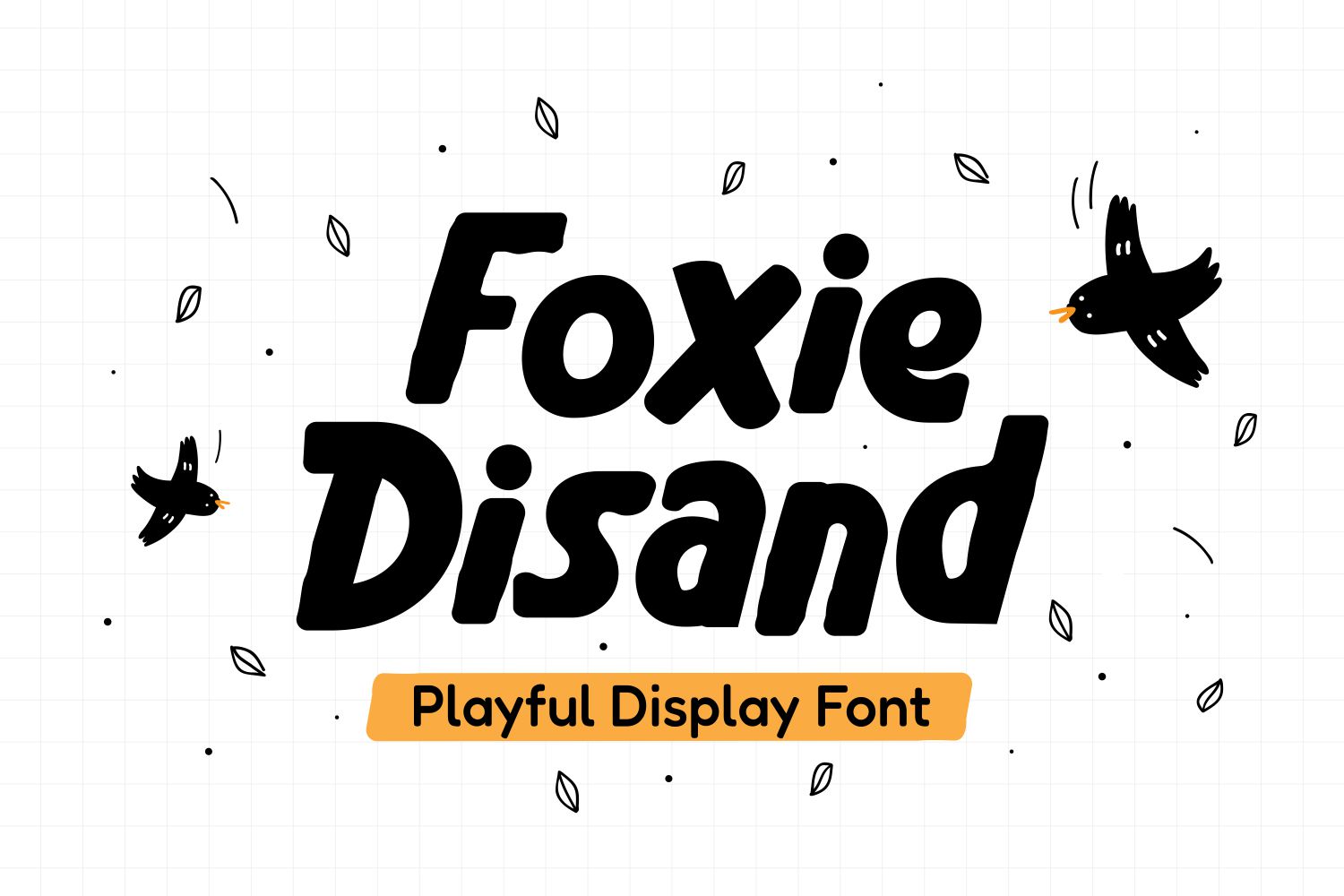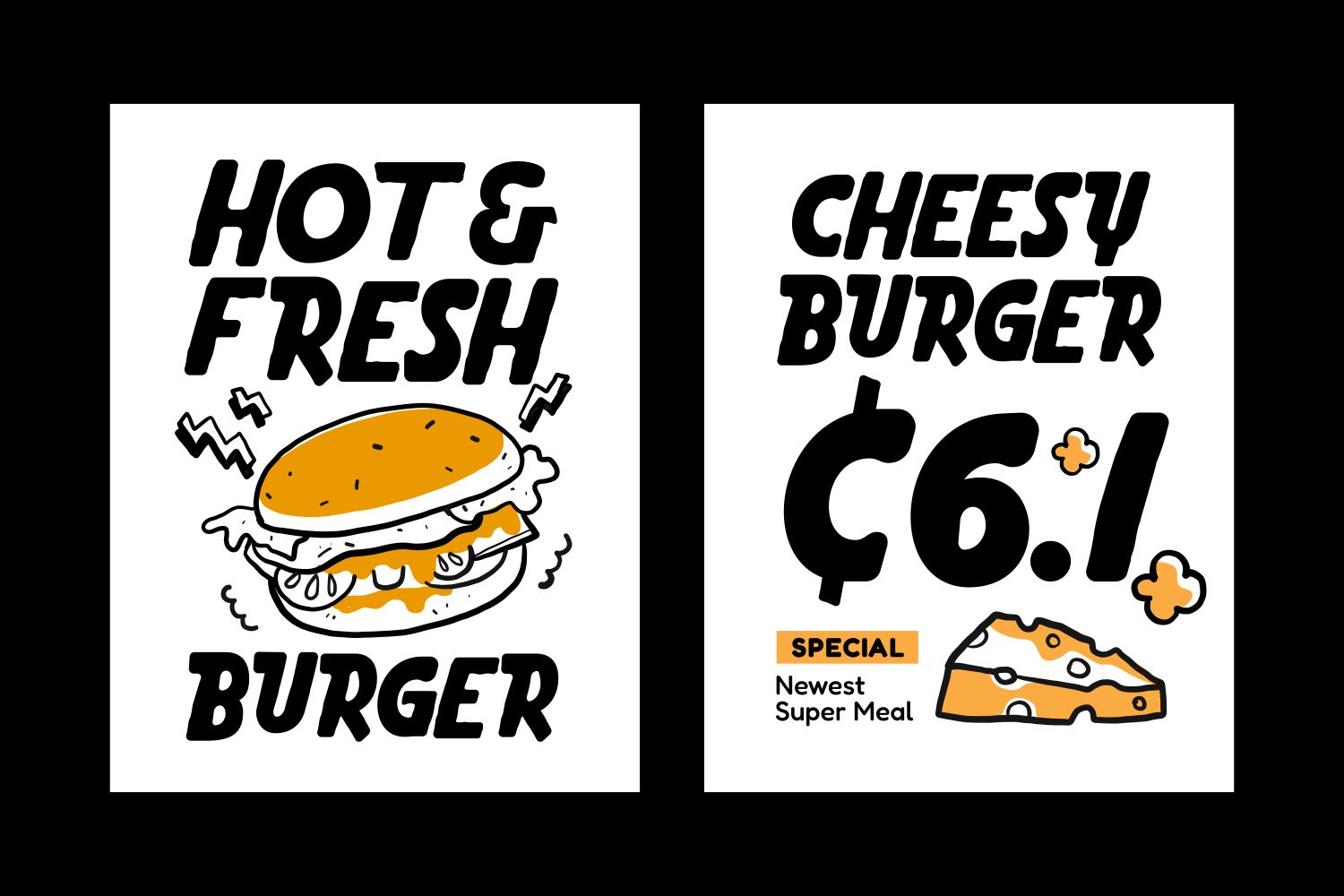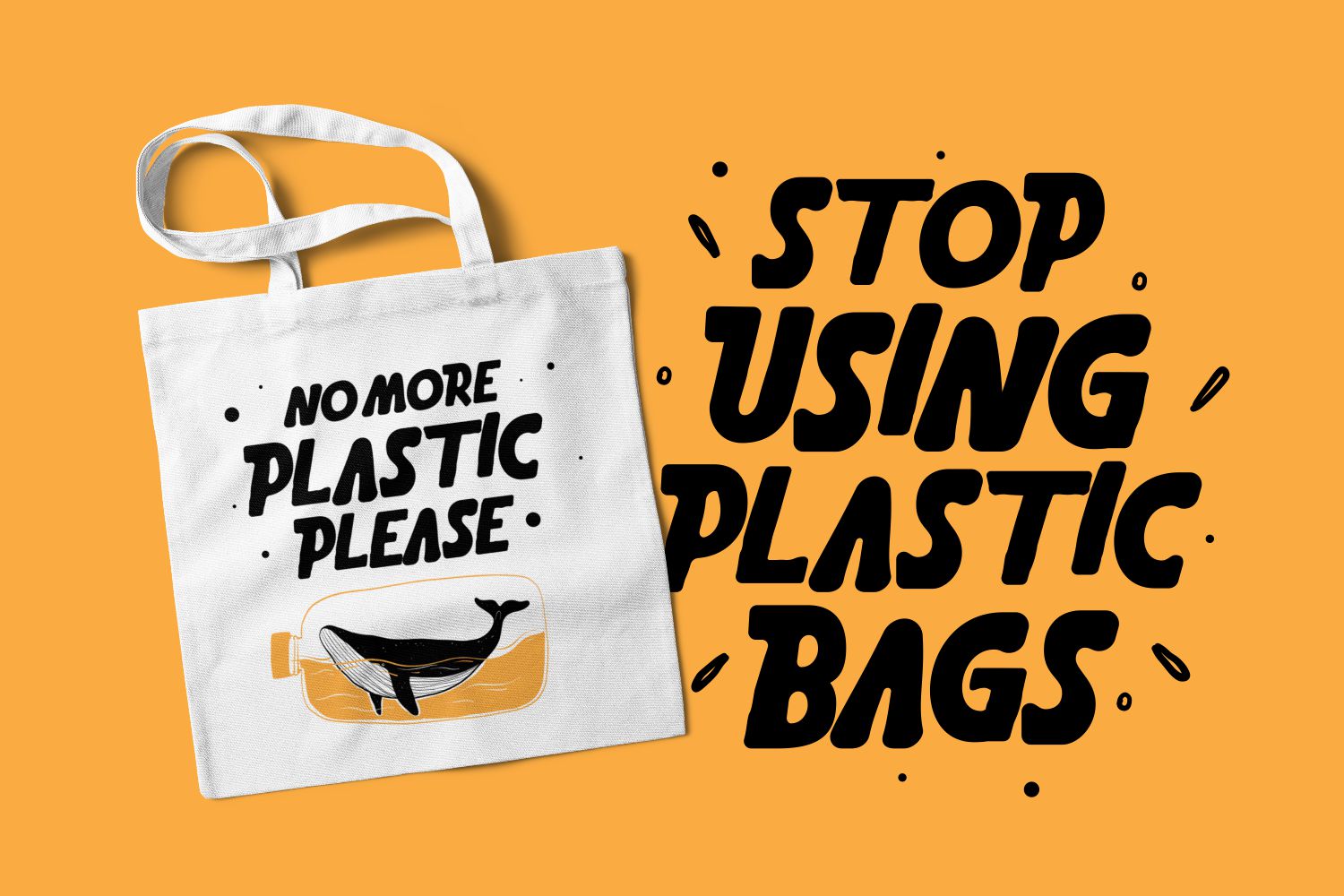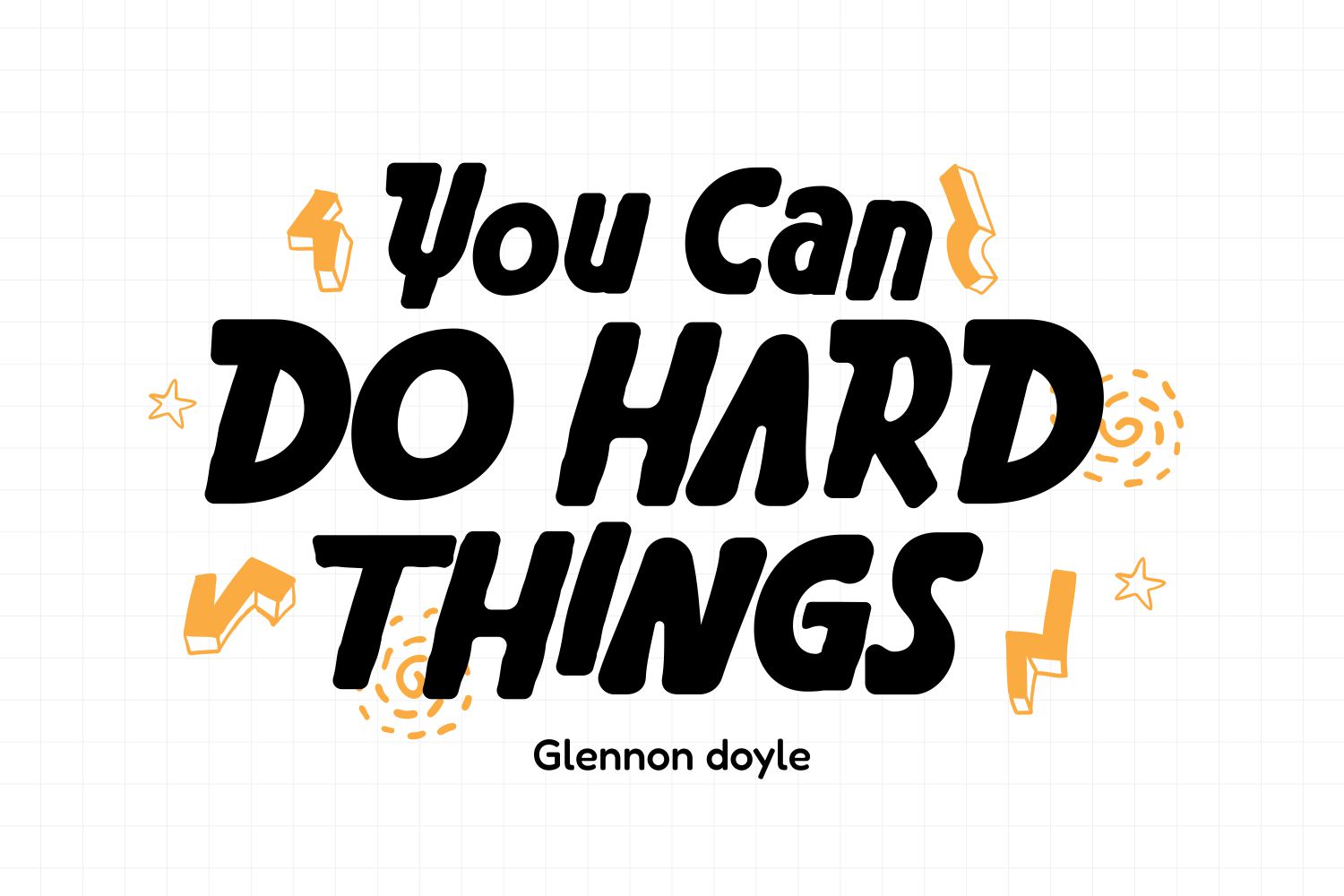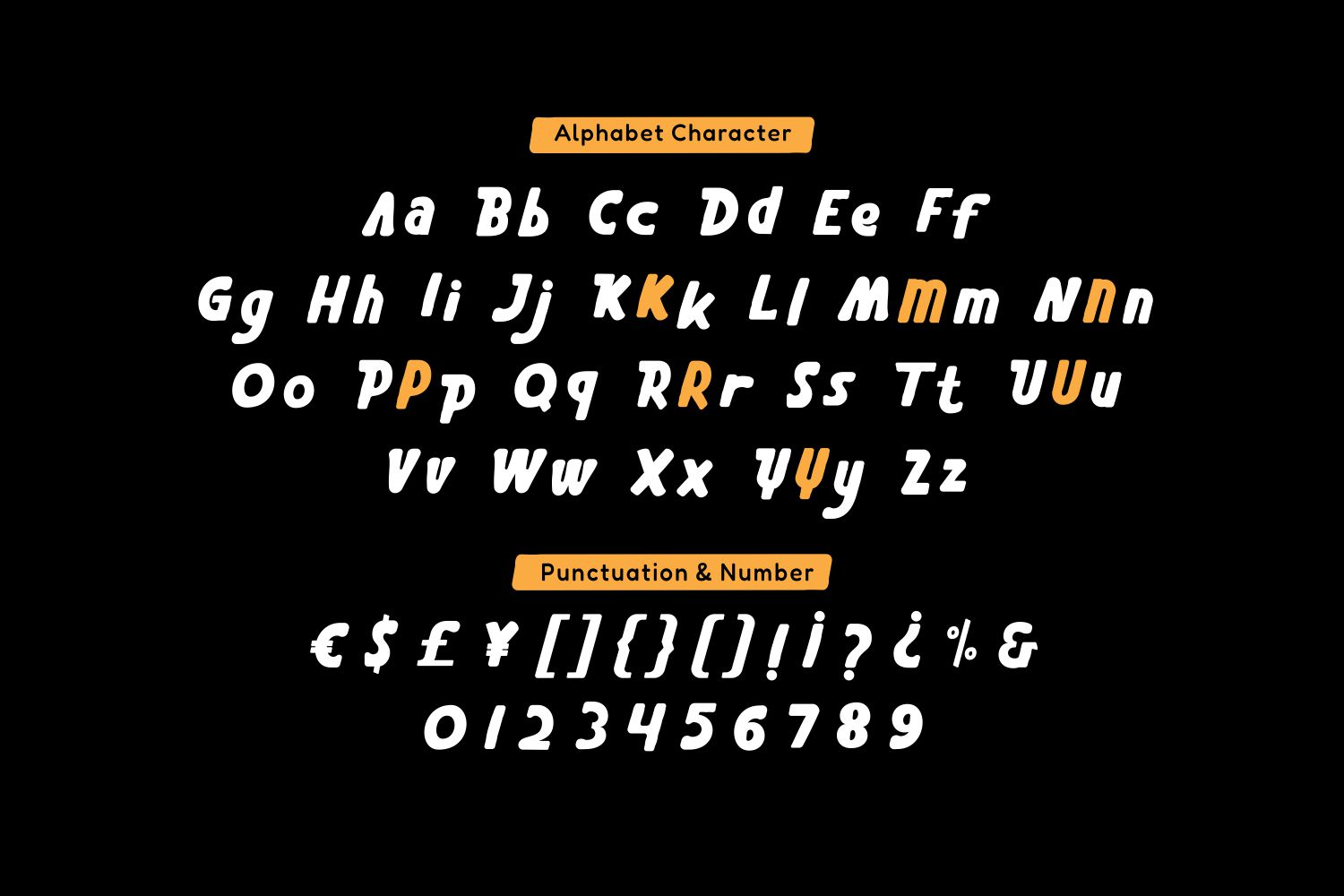
Foxie Disand is a playful display font that brings a fun and dynamic vibe to any design project. With its bold strokes, rounded edges, and slightly quirky shapes, this font is perfect for designs that aim to be cheerful, approachable, and full of energy. Whether used for branding, posters, packaging, or social media graphics, Foxie Disand stands out with its eye-catching style while maintaining excellent readability. Its versatility makes it a great choice for both digital and print designs that want to capture a youthful and vibrant spirit.
The font includes a complete set of uppercase and lowercase letters, punctuation, numbers, and multilingual support, ensuring it adapts well to various creative needs. Foxie Disand’s playful look pairs beautifully with illustrations, doodles, or bright color palettes, making it ideal for children’s products, food packaging, eco-friendly campaigns, or fun merchandise. If you’re looking for a font that adds charm, warmth, and a friendly character to your project, Foxie Disand is the perfect match.